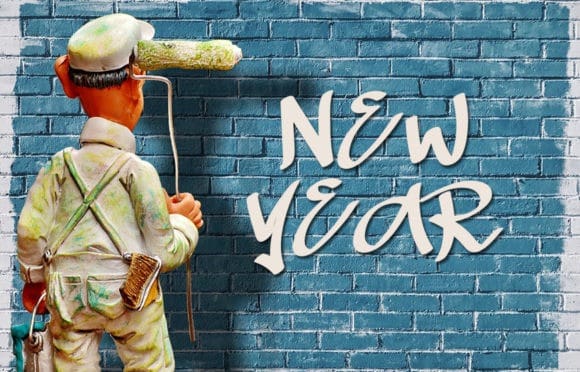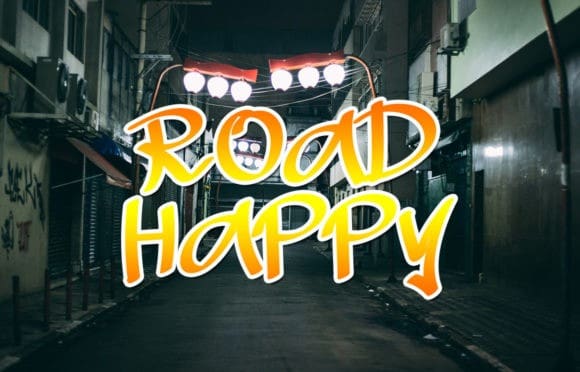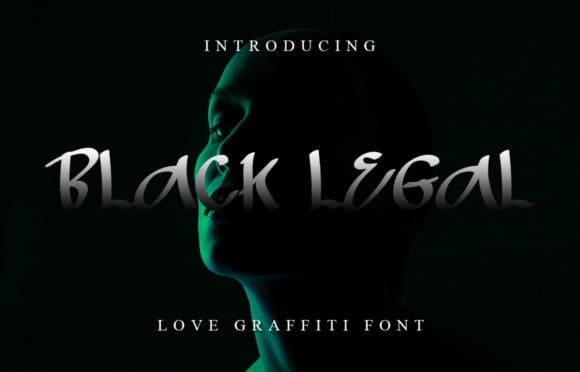
Black Legal Font
Black Legal Font is a bold and beautiful display font. Fresh, clean, and elegant, it will look amazing on a great number of products, both formal and informal. By using it, you will add an incredibly joyful touch to your designs, and you will notice that your creative projects have never looked more beautiful!